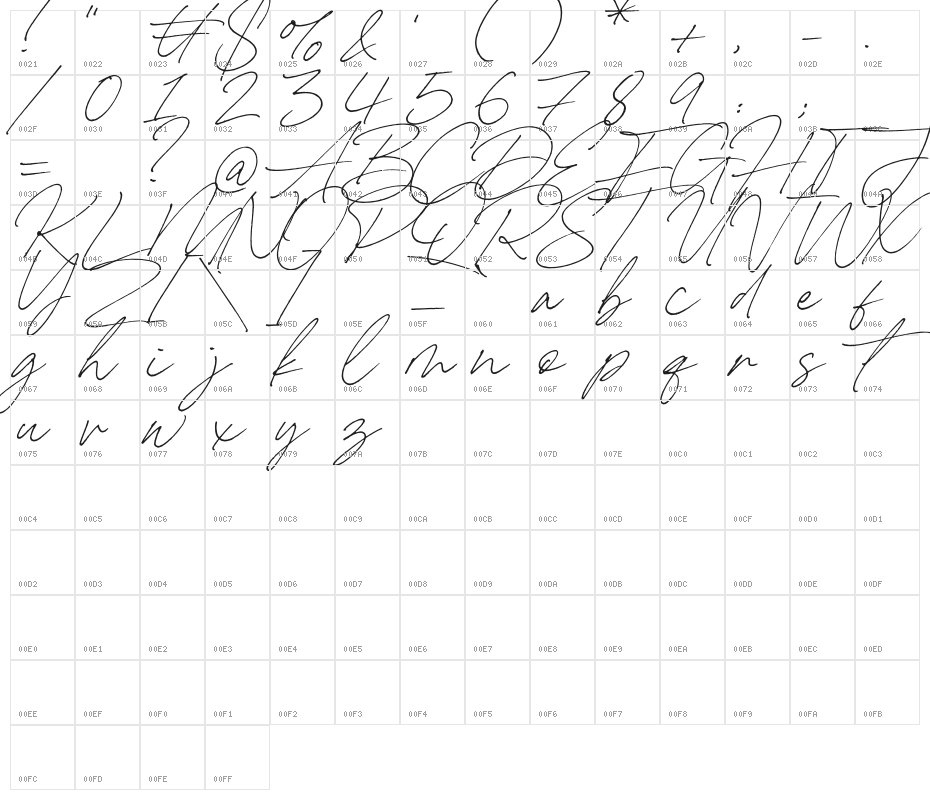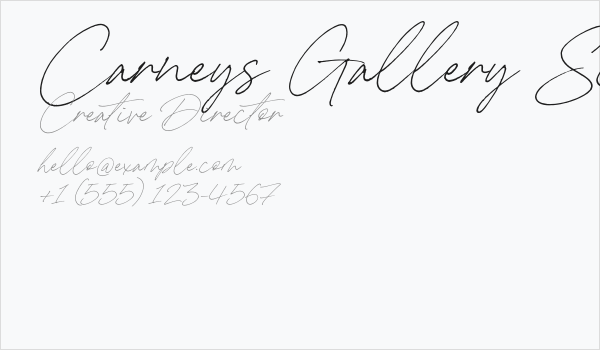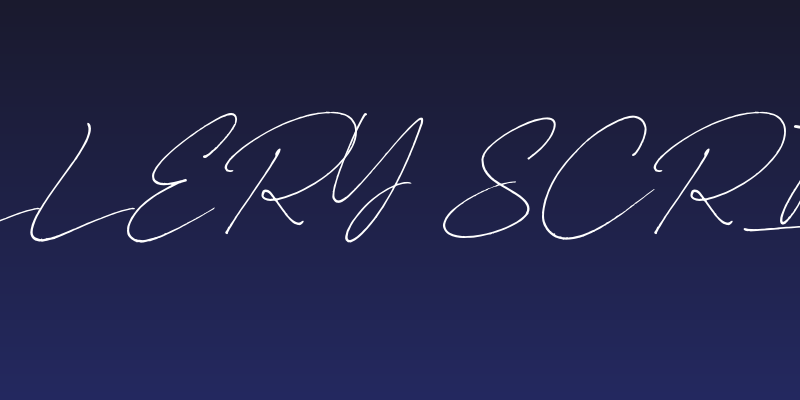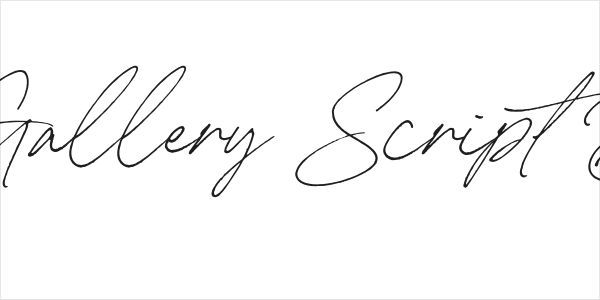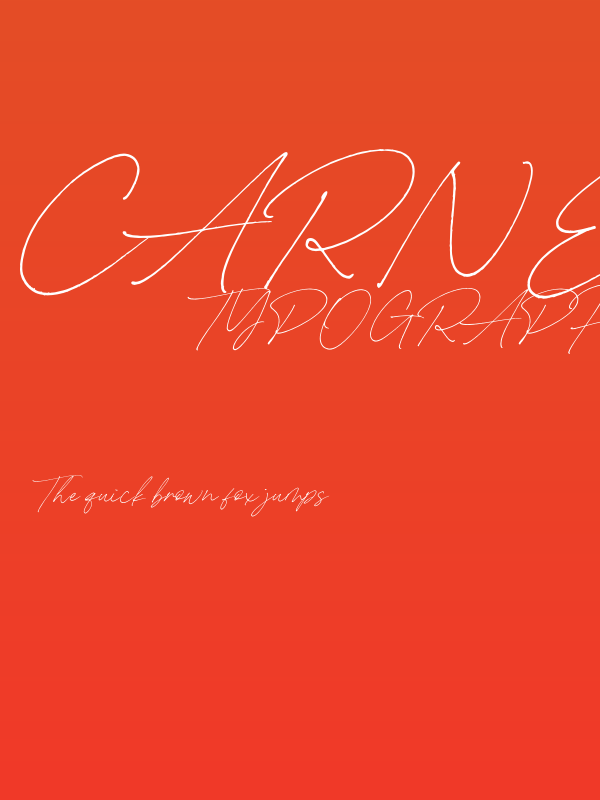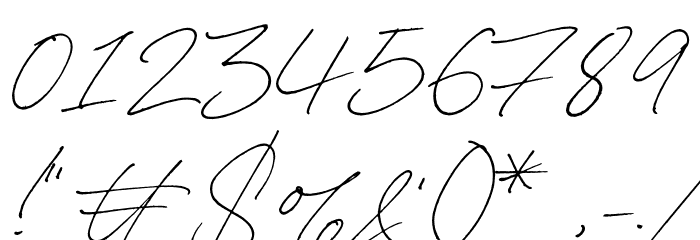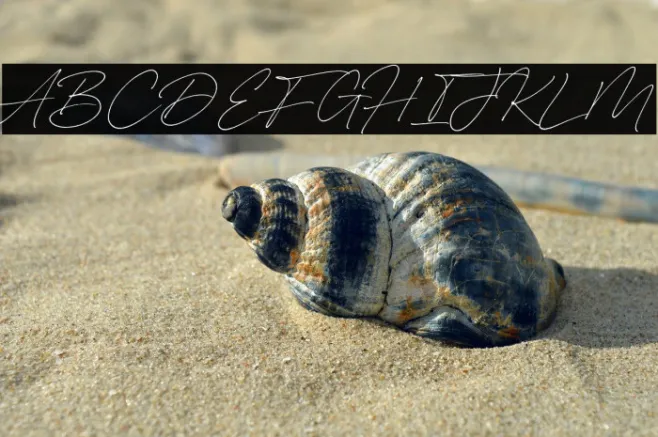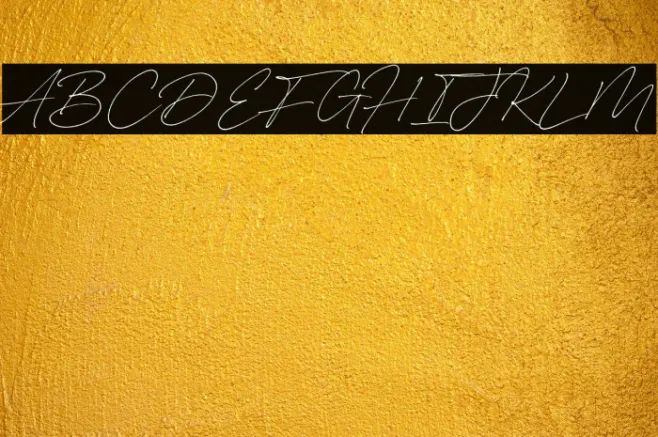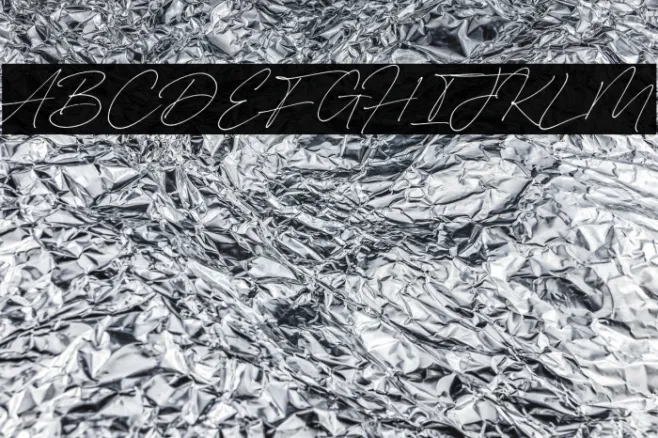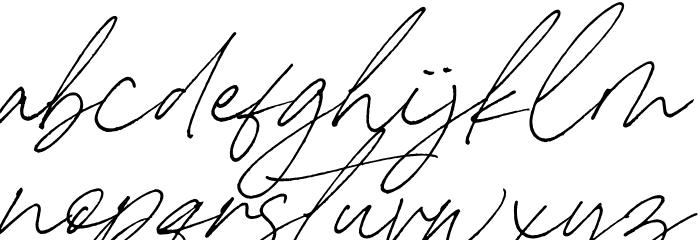
Carneys Gallery Script Demo Ver Font
Carneys Gallery Script Demo Ver Description
This font exhibits a fluid and elegant script style, characterized by its cursive, handwritten appearance. The uppercase letters are gracefully connected, with a slight slant that adds to the dynamic flow of the text. The lowercase letters are intricately designed, featuring loops and swirls that enhance the font's decorative nature. The numerals maintain the script's fluidity, ensuring consistency across all characters. Special characters are thoughtfully integrated, maintaining the overall aesthetic. This font's delicate strokes and artistic flair make it suitable for creative and expressive design projects.
| Proposed Projects | Ideal for wedding invitations, greeting cards, personal branding, and artistic projects requiring a touch of elegance. |